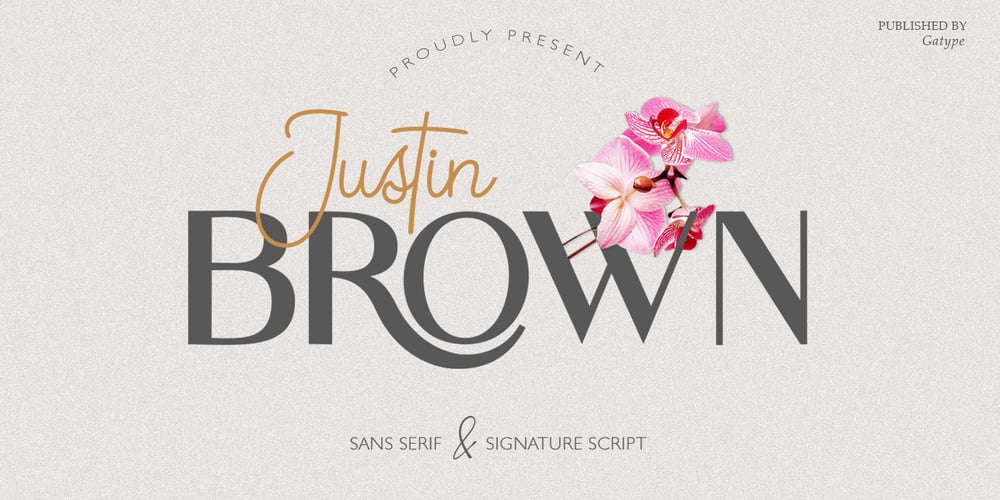
Justin Brown Monoline Font Family was designed by khaidir and published by Gatype. Justin Brown Monoline contains 2 styles and family package options. Justin Brown is a Sans serif display font with a modern, classy, fun, unique and versatile style. It looks amazing on any screen size and is easy to read in any text size. This font also has tons of unique alternatives and binders that will make for stunning design projects. This will add a fun and friendly touch to any of your projects. This font is PUA encoded which means you can access all the glyphs and sweeps easily and more.